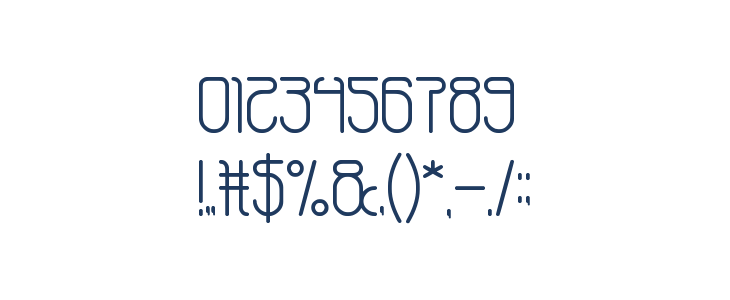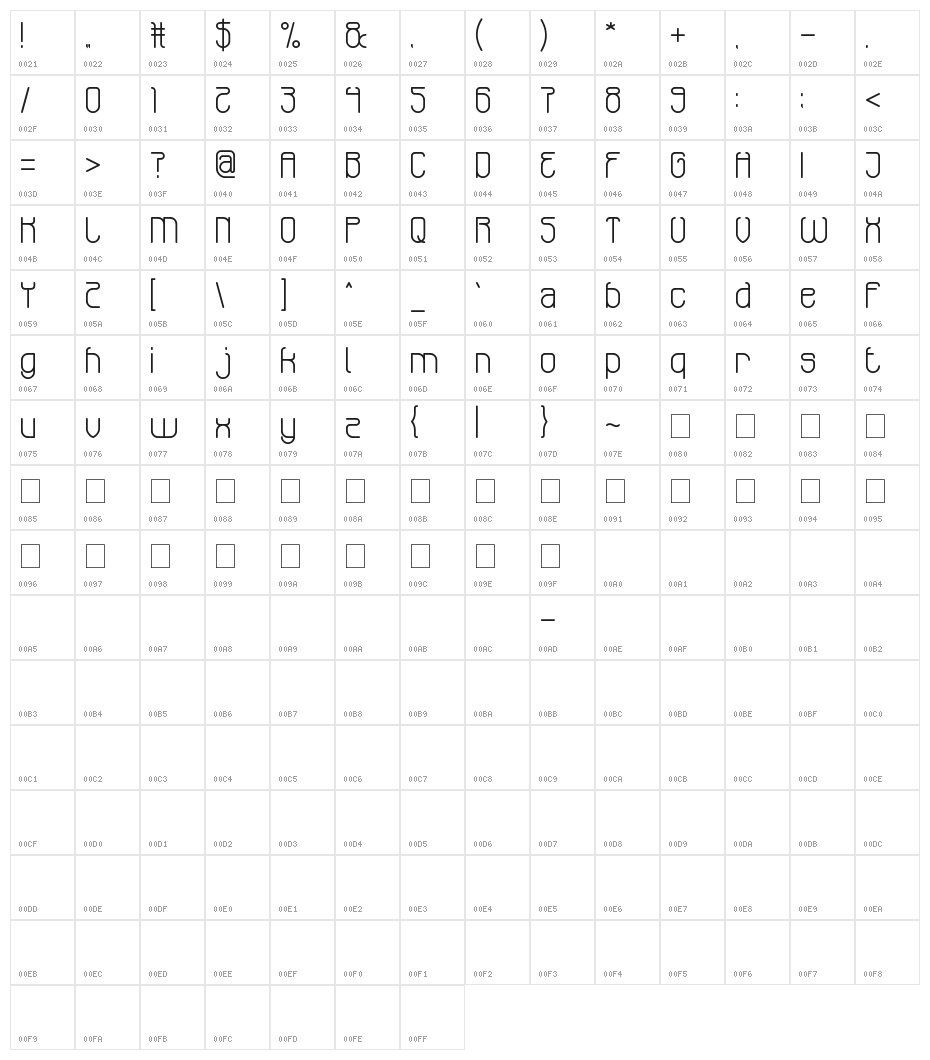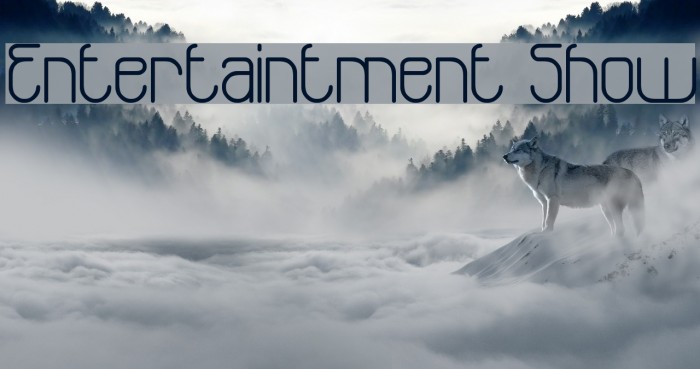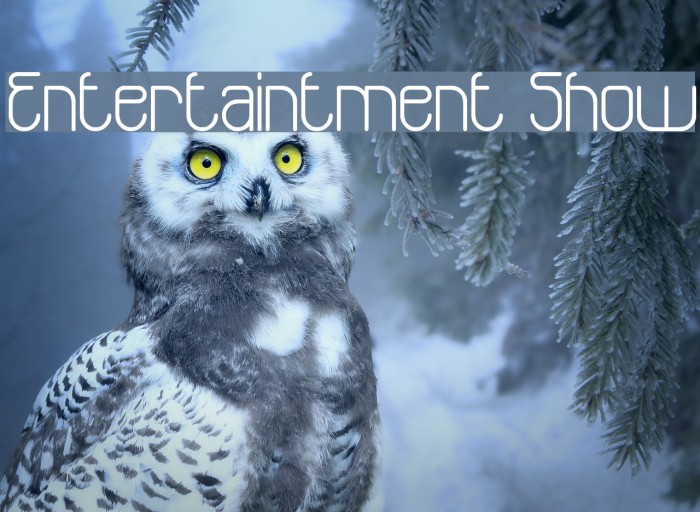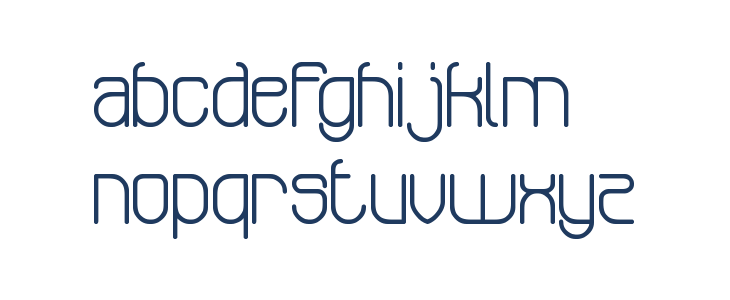
Entertaintment Show Font
Entertaintment Show Description
This font features a sleek, modern design with a geometric and rounded appearance. The characters are uniform in height, with a consistent stroke width that gives it a clean and minimalist look. The uppercase letters are slightly taller than the lowercase, maintaining a balanced proportion. The numerals and special characters follow the same design principles, ensuring a cohesive appearance across all glyphs. The rounded edges and open counters contribute to its legibility, making it suitable for various design applications. Its contemporary style is ideal for projects that require a futuristic or tech-inspired aesthetic.